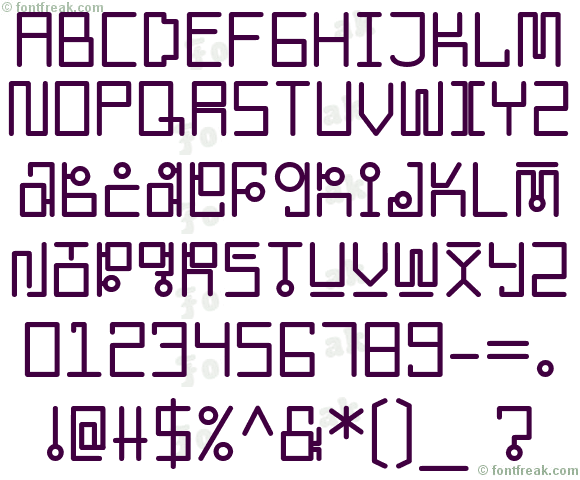
Korean Looks
Korean Looks is a striking display font designed by Abas Creative, released in 2019 under a freeware license. This font falls into the decorative category, characterized by its unique geometric shapes and modern aesthetic. The visual style features bold strokes with a consistent weight, creating a strong presence that grabs attention. The spacing between characters is well-balanced, enhancing readability while maintaining a contemporary flair. The design incorporates playful elements that evoke a sense of creativity and innovation, making it suitable for various applications.
This font is ideal for a range of use cases. It shines in creating eye-catching movie posters, where its bold design can draw viewers in. Restaurant menus can benefit from its unique aesthetic, adding a touch of modernity to the dining experience. Additionally, Korean Looks works wonderfully for fashion branding, infusing a stylish edge that appeals to trendy audiences. Graphic designers can use it for promotional materials, ensuring that their projects stand out in a crowded market. Content creators will find this font useful for social media graphics, where visual appeal is paramount.
The target audience for Korean Looks includes graphic designers, small business owners, and content creators who seek a distinctive touch in their projects. Its versatility allows for creative expression across various mediums, making it a valuable addition to any designer's toolkit.
Korean Looks font free download offers an opportunity for users to explore a unique typeface that stands out in both digital and print formats. Its combination of modern design and functionality ensures that it remains a favorite for those looking to make a statement. With its playful yet bold characteristics, Korean Looks is a font that elevates any creative endeavor, inviting users to embrace its innovative spirit.